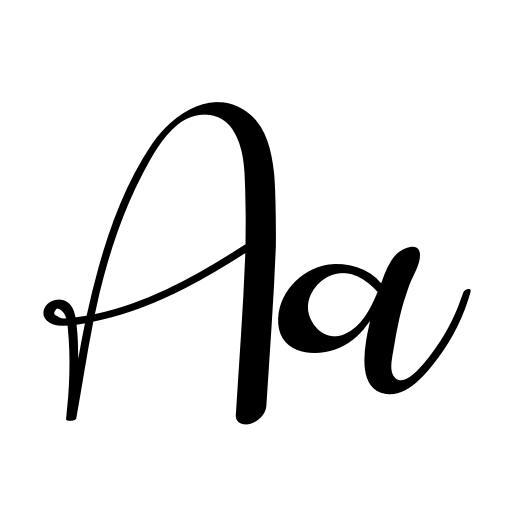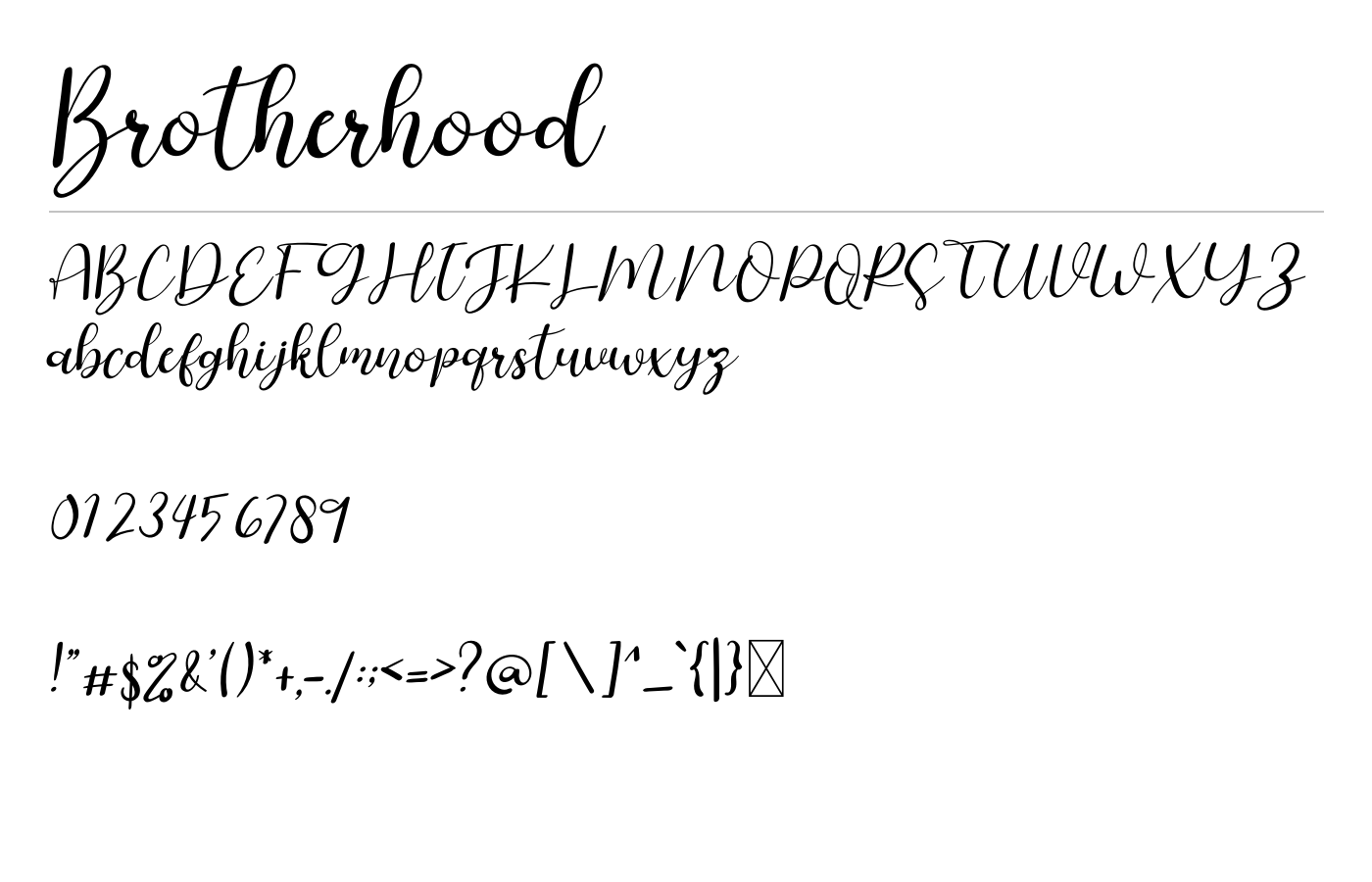
Brotherhood Font is an elegant script typeface with smooth, flowing strokes and moderate contrast that give it a graceful, handwritten feel. Its tall, slightly condensed letterforms and delicate curves make it perfect for stylish branding, invitations, and creative headlines where a touch of sophistication and warmth is desired. This font brings a refined, personal touch that works beautifully for fashion, wedding, and boutique projects.
Brotherhood Font
About Brotherhood Font